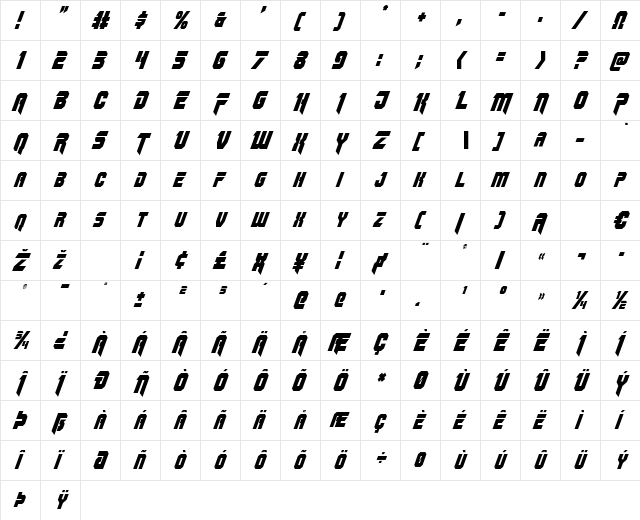
Design Context for OmegaForce Condensed Italic Typeface
OmegaForce Condensed Italic has the bold swagger of sports branding: strong, assertive letterforms designed to dominate headlines and jerseys alike. The dynamic lean of this cut emphasises speed and emphasis in any layout. The condensed width makes it efficient for tight spaces without sacrificing legibility.
Built for sports team identities, athletic apparel, event posters, and high-energy promotional material.
Pro Tip: OmegaForce Condensed Italic thrives on contrast — try it large, bold, and tight against a clean background for maximum visual impact.